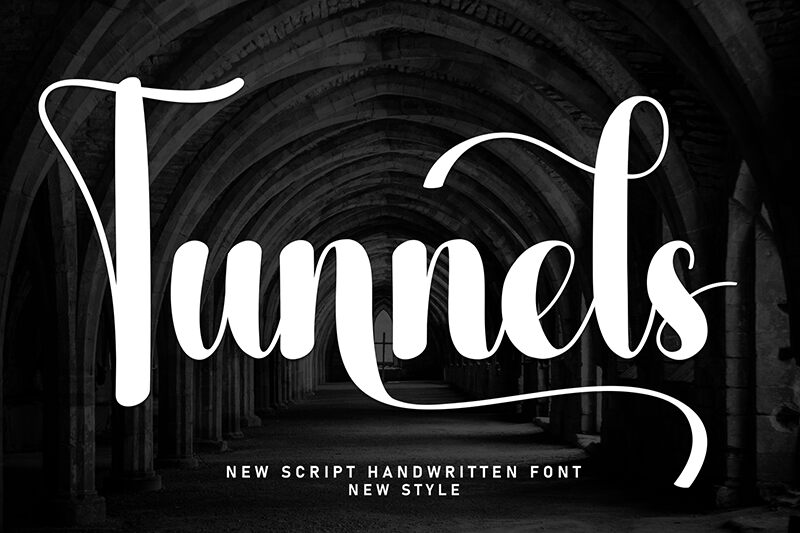
Tunnels
Tunnels font is a handwritten typeface from Andi Moz with a condensed style. Elegant and fluid, this font reveals itself in graceful letters whose condensed strokes and whimsical elements create a vintage-inspired style. Its ornate outlines also have a soft touch that makes its glamorous design useful for divine projects focused on readability.
Tunnels font can be used for invitations, greeting cards, logotypes, labels, packaging designs, titles or body text of magazines and catalogs, advertising projects, or signage. It is free to use and comes at no cost allowing you to try it today in your upcoming venture!